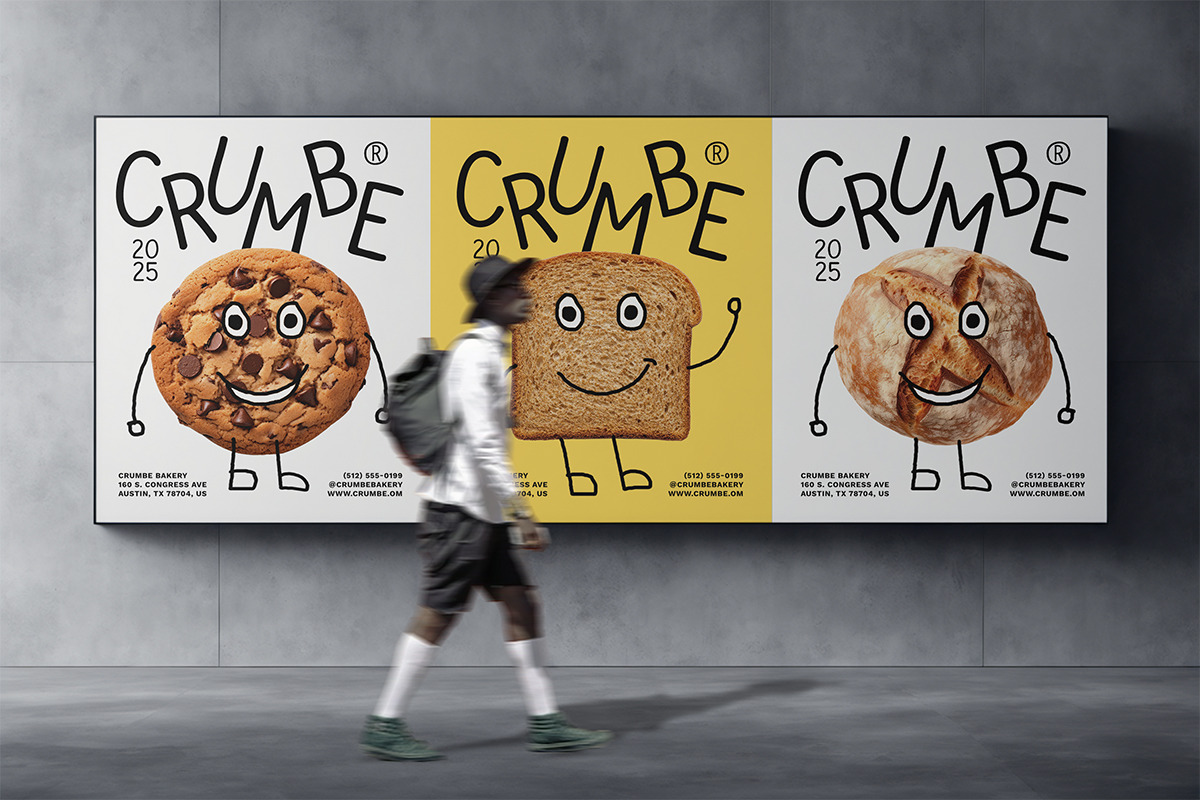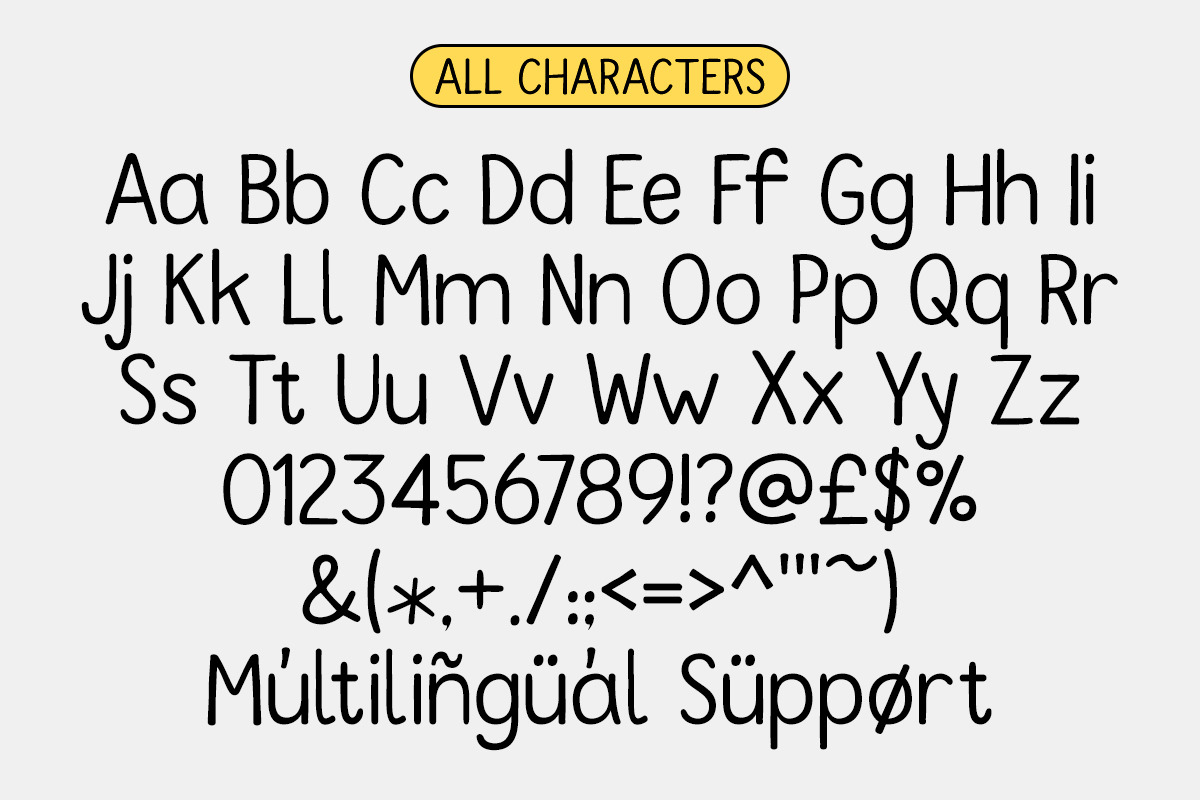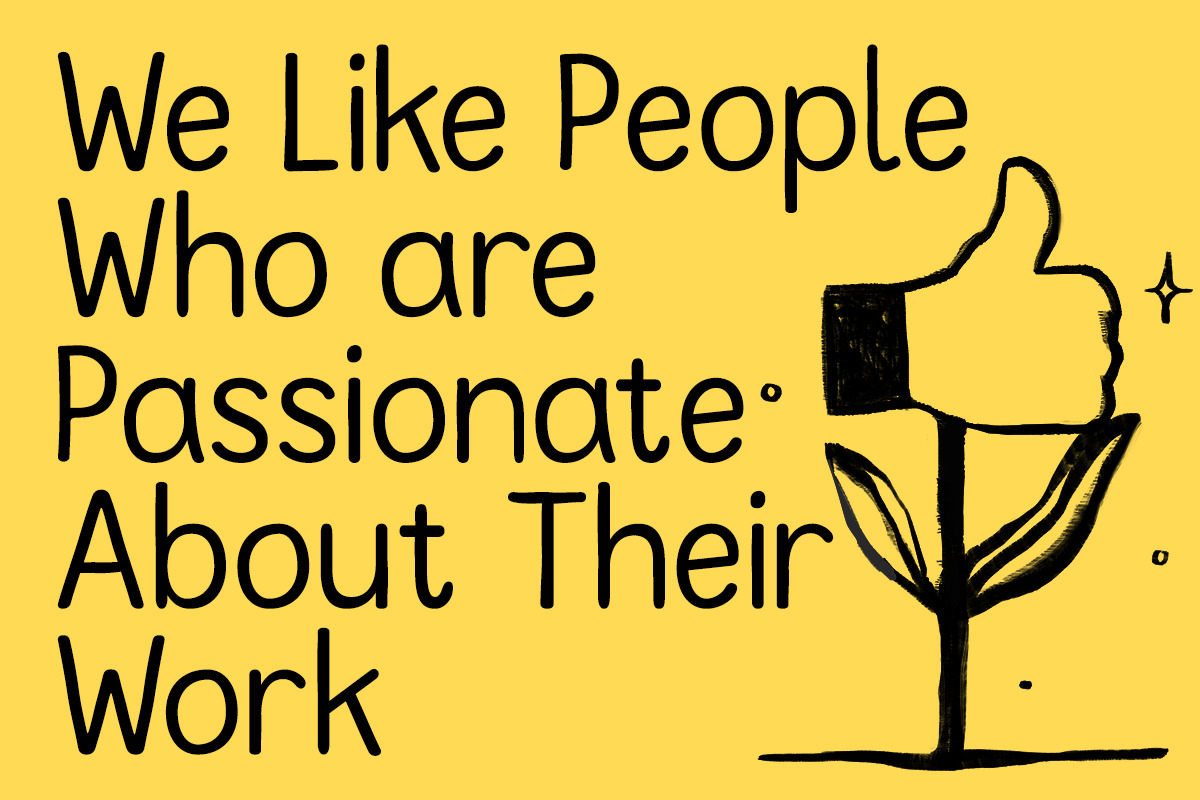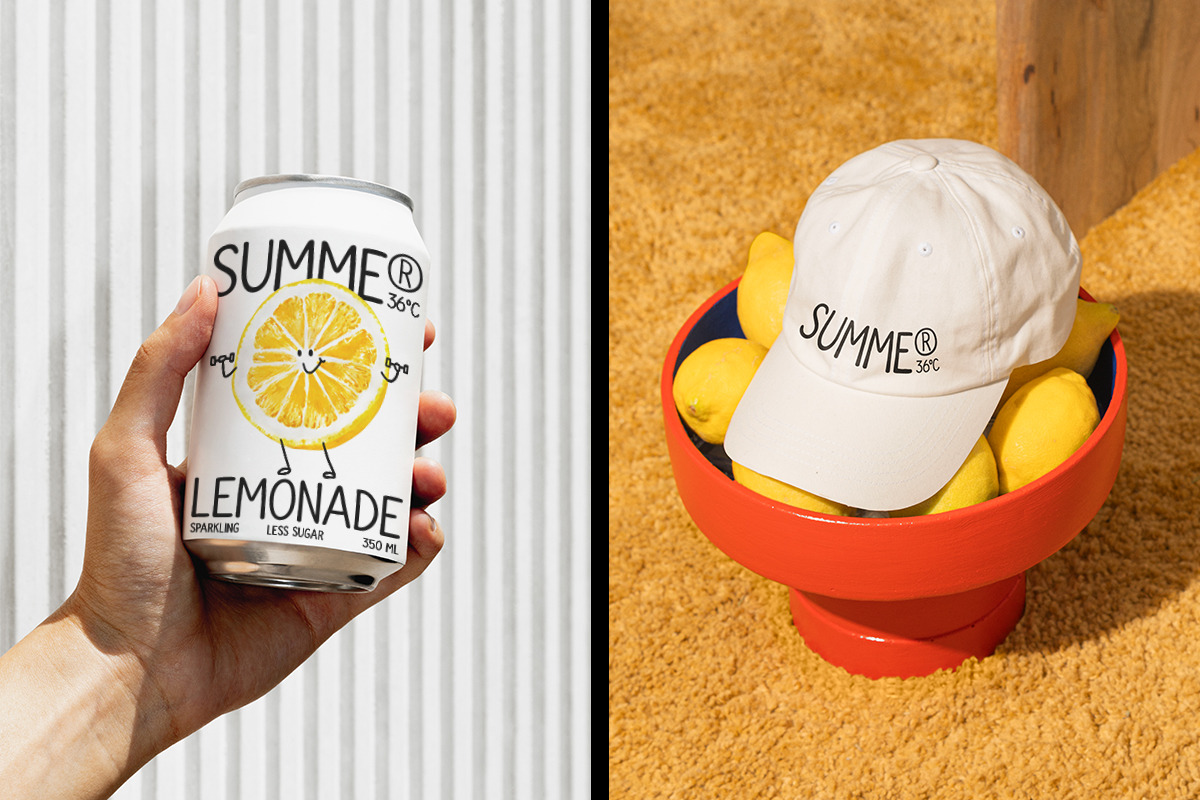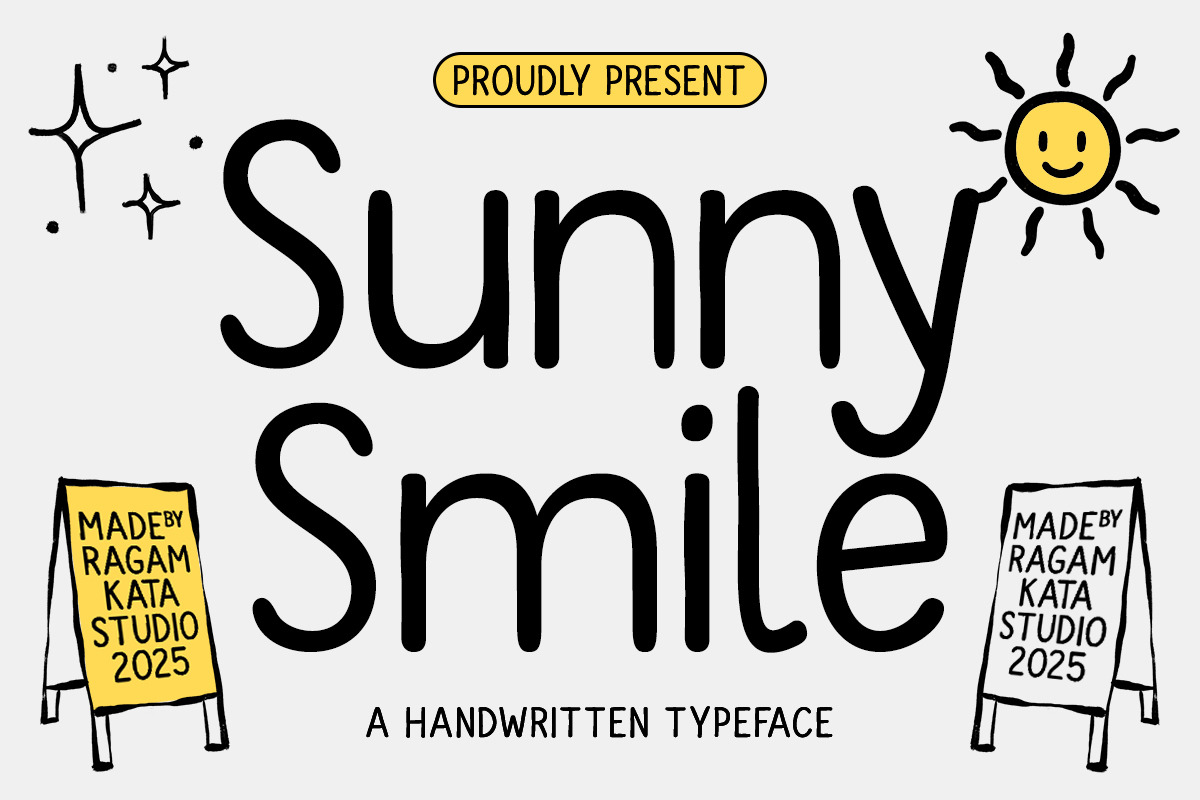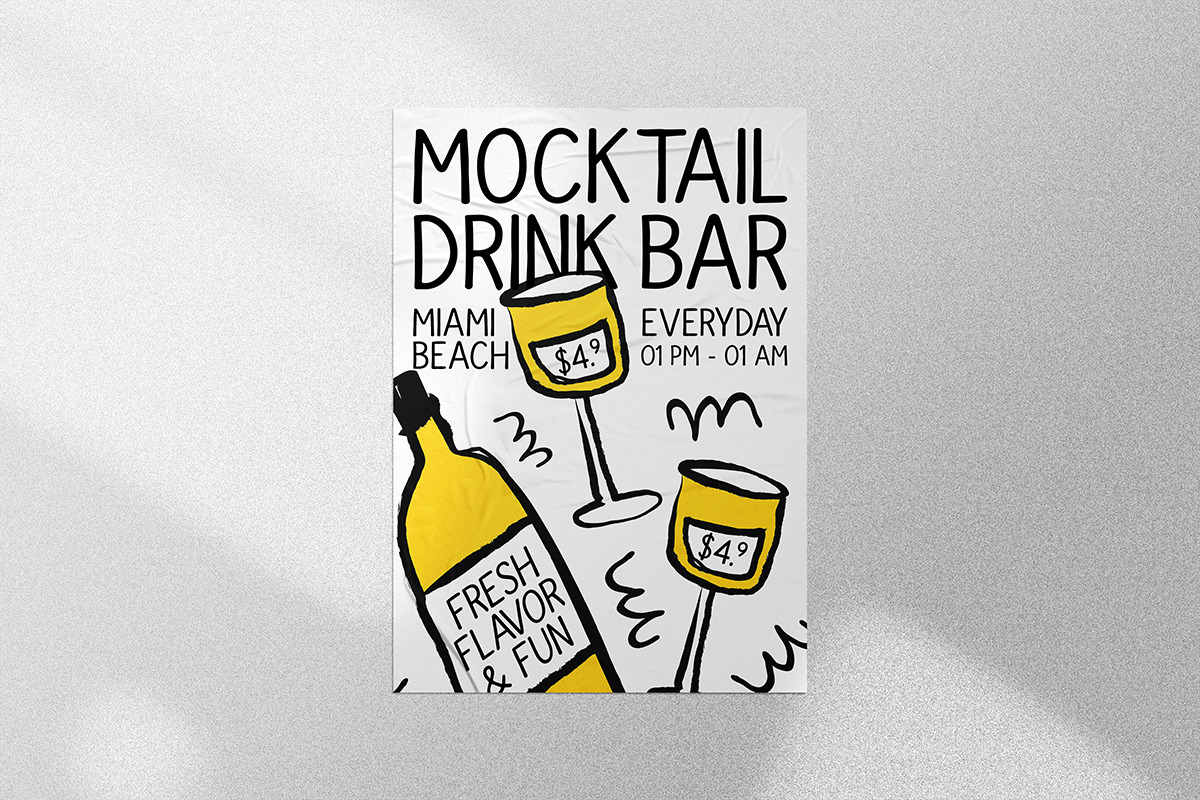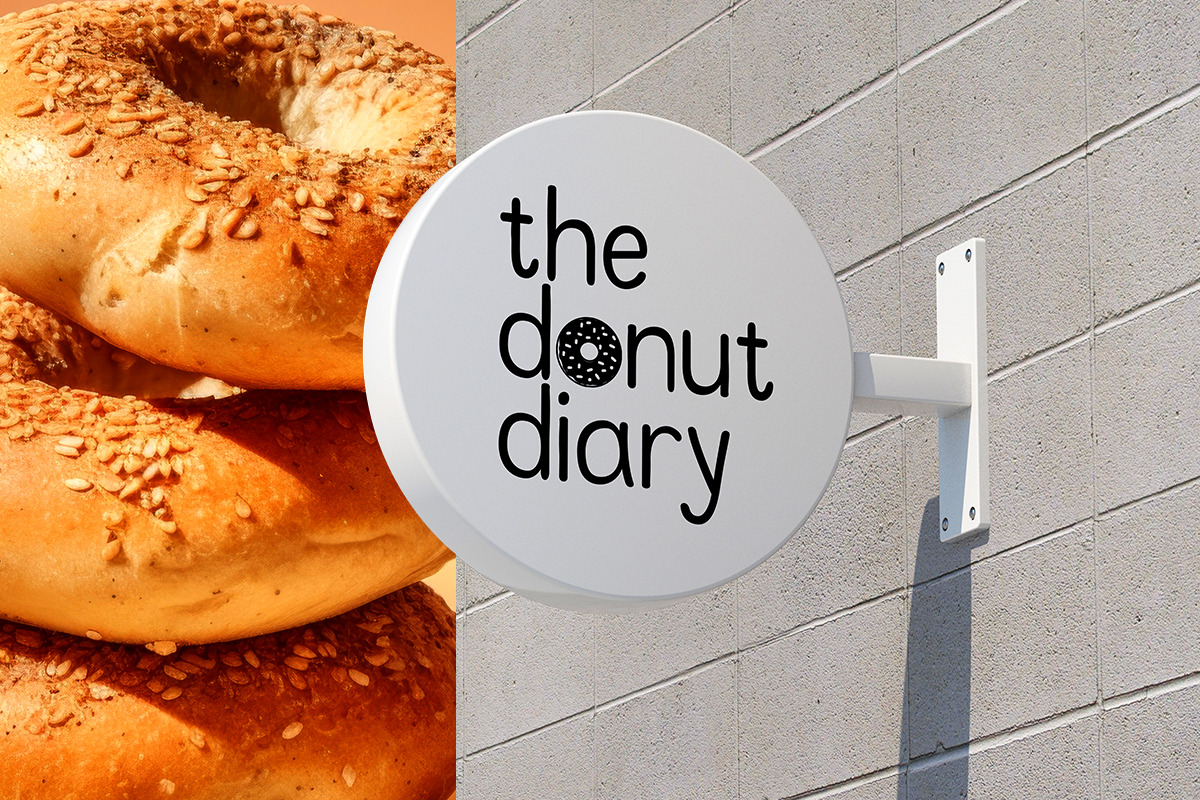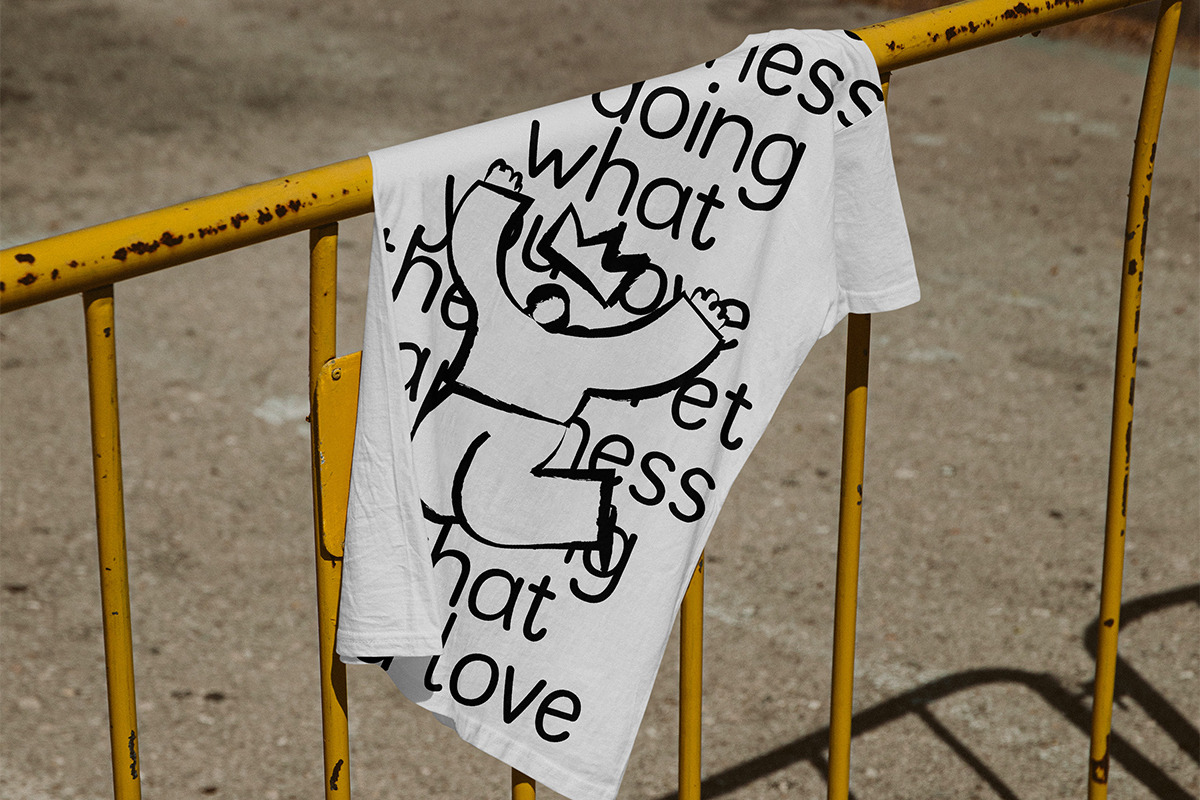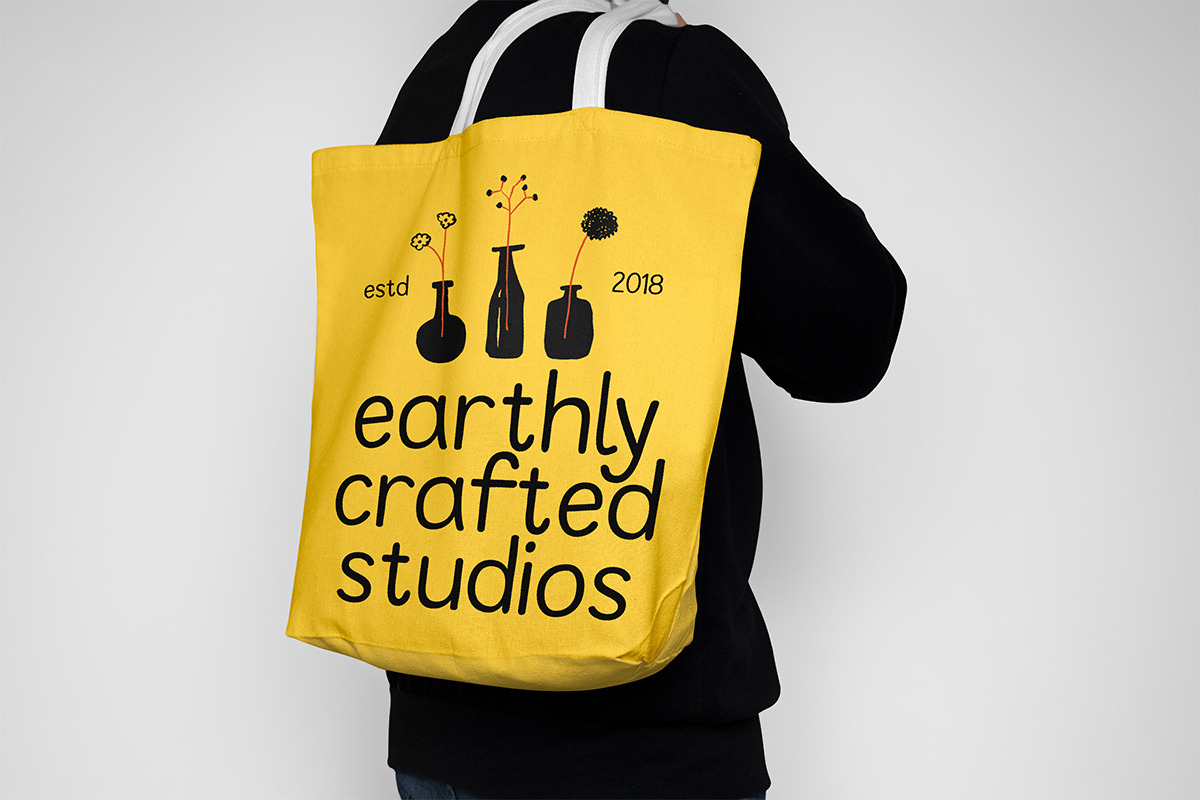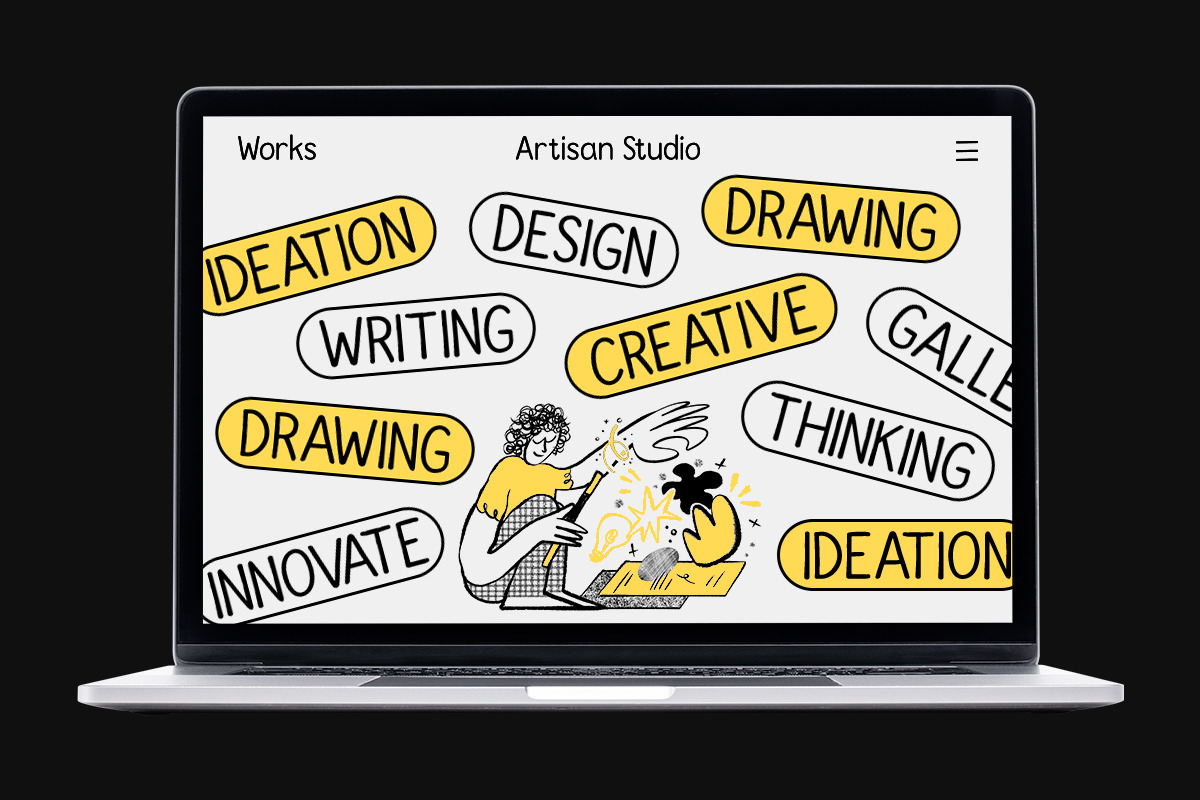
Sunny Smiles - Handwritten Sans Font
Sunny Smile is a playful handwritten typeface that brings cheerful, fun, and joyful energy to your designs. Its rounded and friendly letters create a cute and organic look that feels modern yet casual. Perfect for kids projects, logos, quotes, packaging, and personal branding, this smooth and aesthetic font adds a happy and creative touch to any layout. Let Sunny Smile brighten your design with its soft, simple, and funny vibe that truly makes you smile.